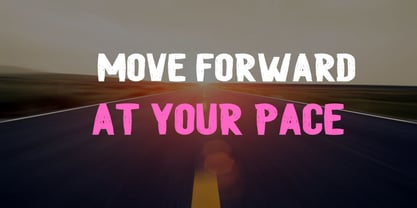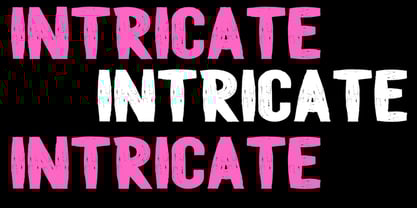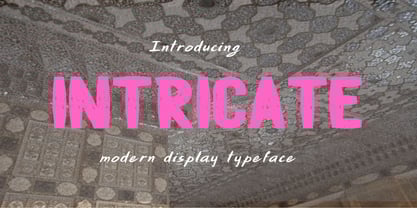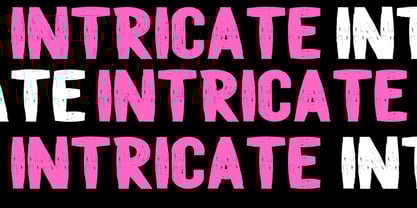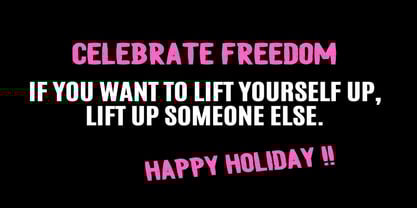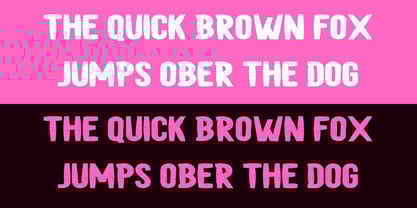
Intricate
by Dream Font
The Intricate Font Family was designed by Karen Ackoff and published by Dream Font. Intricate contains 1 styles.
Introducing Intricate is a bold condensed brush font designed to make a statement. With its powerful strokes, raw textures, and fearless energy, this typeface delivers strength and attitude in every letter. Whether you’re crafting branding, logos, packaging, merchandise, or social media graphics, INTRICATE adds a dynamic, handcrafted touch that grabs attention instantly.
Designers: Karen Ackoff
Publisher: Dream Font
Foundry: Dream Font
Design Owner: Dream Font